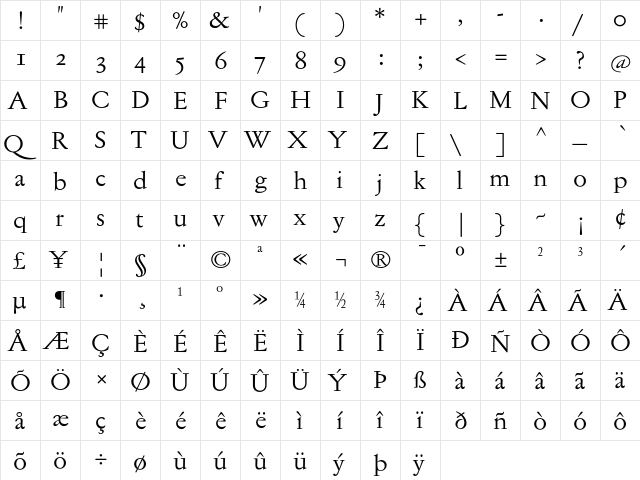
Jannon Text OSF Regular
| Foundry | Frantisek Storm, stormtype.com |
Design Context for Jannon Text OSF Typeface
Jannon Text OSF takes a measured approach to typography — its balanced proportions and neutral character make it a reliable workhorse for both digital and print work.